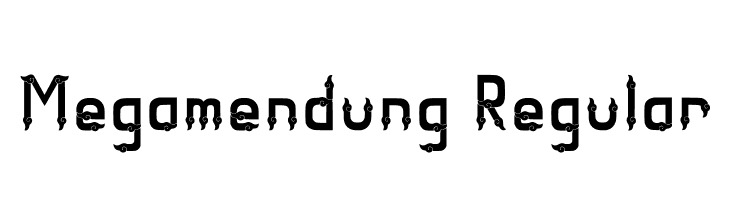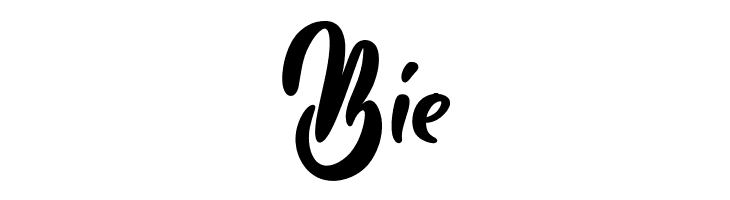
A decorative font with intricate cloud-like embellishments on each character.
A modern geometric font with bold, angular uppercase and smooth lowercase letters.
A bold, Eastern European-inspired font with strong, angular strokes.
A whimsical handwritten font with elegant, flowing cursive letterforms.
A bold, brush-style italic font with dynamic strokes and a handcrafted appearance.
A playful, handwritten font with a casual and dynamic style.
A pixelated, monospaced font with a retro digital aesthetic.
A decorative font featuring characters embedded in piano key designs.
A bold, condensed font with a modern and dynamic style.
A bold, geometric font with dynamic and artistic design elements.